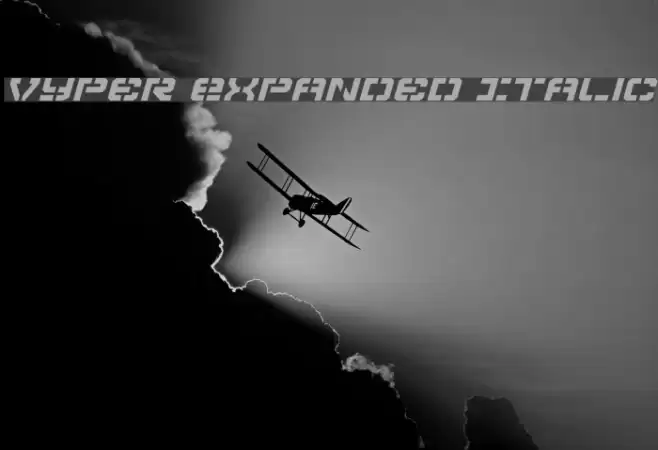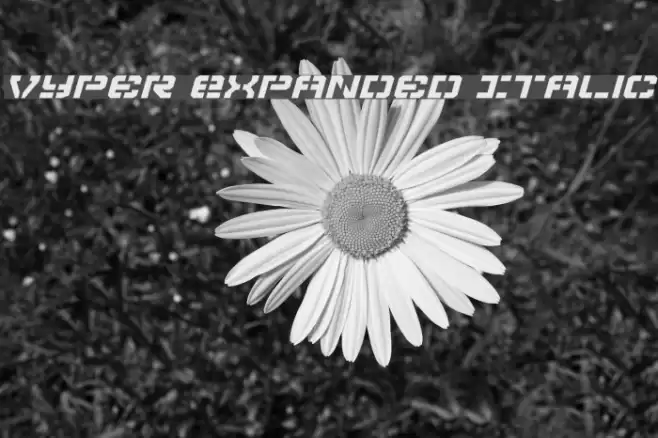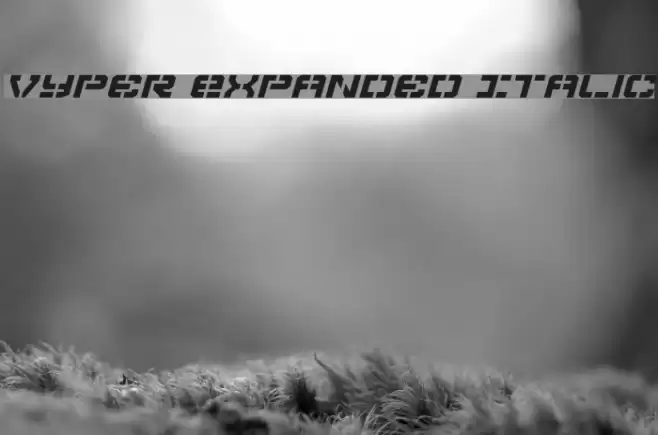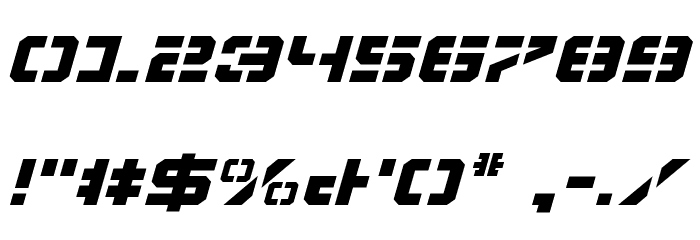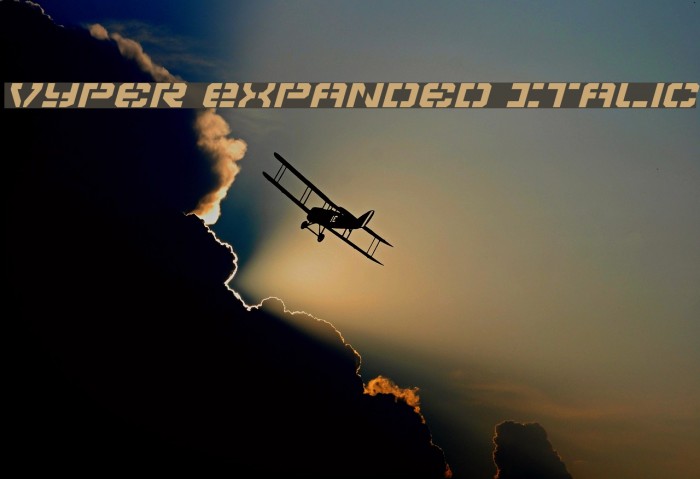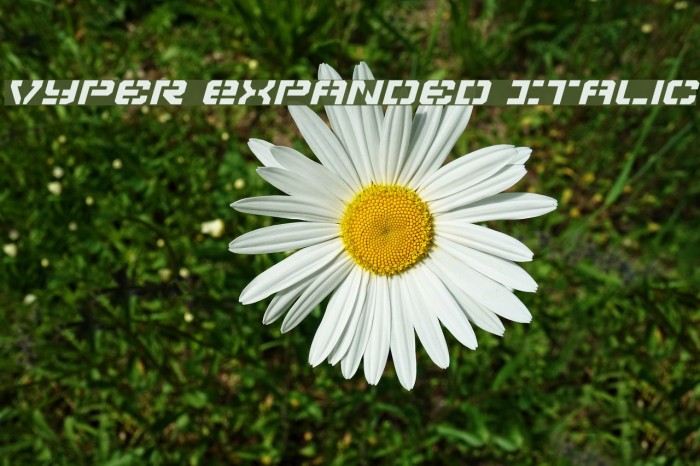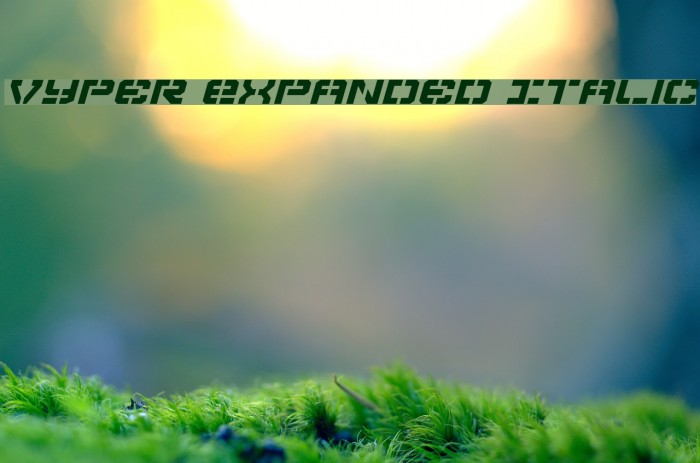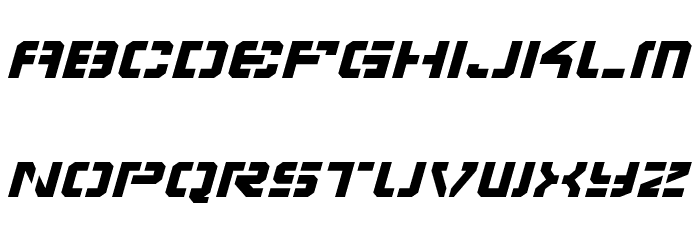
Vyper Expanded Italic Font
Vyper Expanded Italic Description
This font features a bold, futuristic design with an expanded and italicized style. The characters are sharply angled, giving a dynamic and energetic appearance. The uppercase and lowercase letters maintain a consistent geometric structure, while the numbers and special characters complement the overall aesthetic. The font's design is reminiscent of digital or sci-fi themes, making it suitable for projects that require a modern and edgy look. The spacing between characters is tight, enhancing the compact and cohesive feel of the text.
A bold, expanded, and italicized futuristic font with a dynamic, geometric style from Sci-fi fonts.
- Proposed Projects: Ideal for sci-fi movie posters, video game titles, technology branding, and digital media.
- Width: Expanded
- Character Spacing: Tight